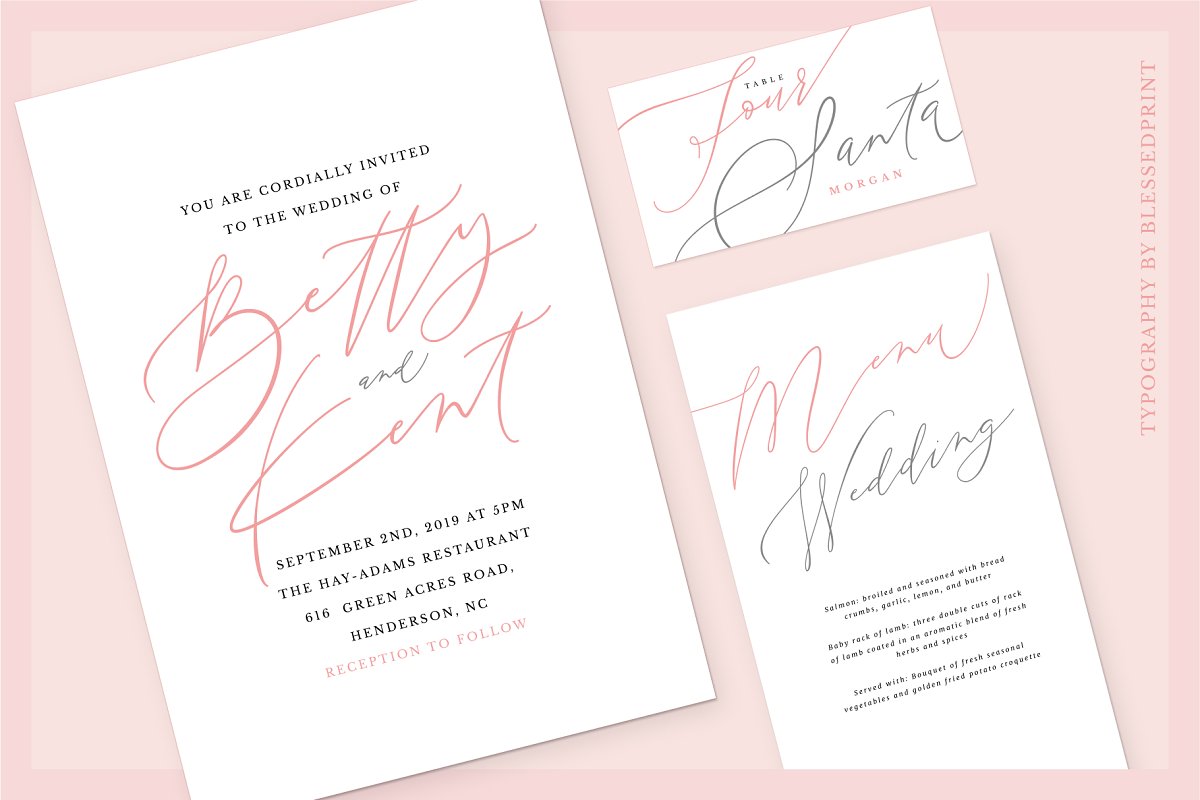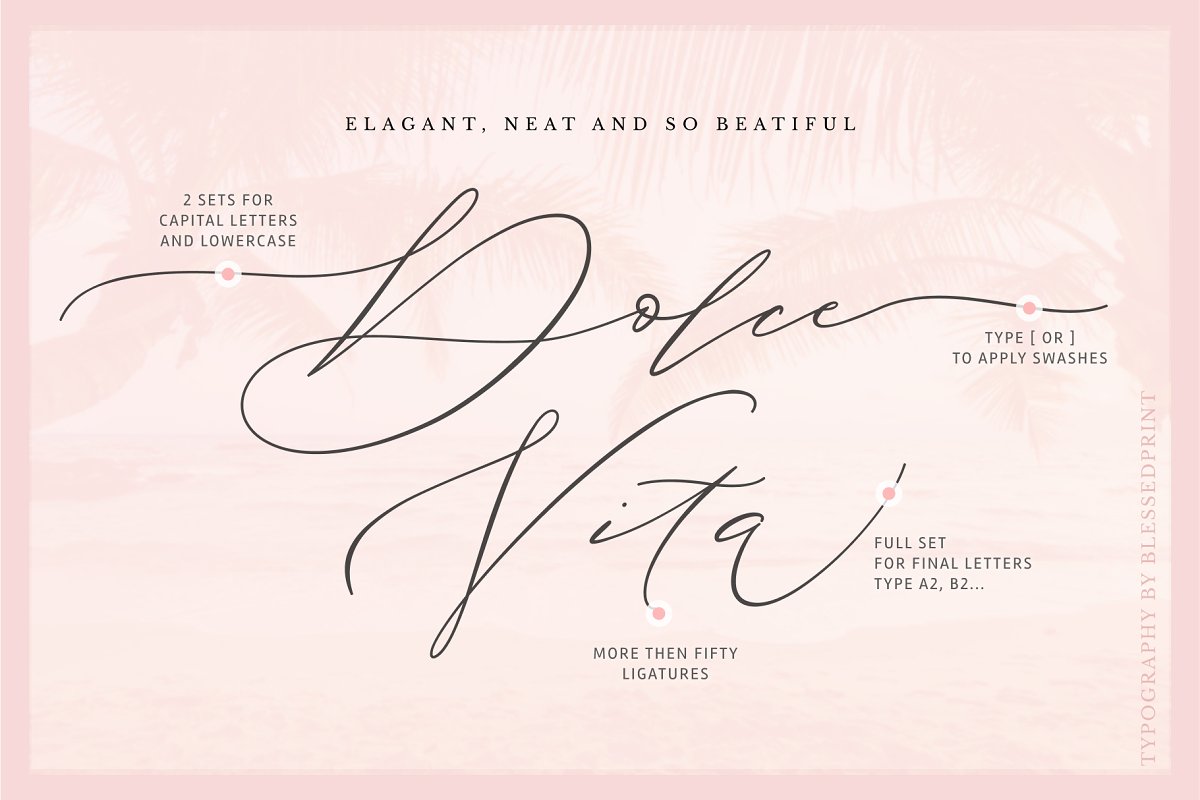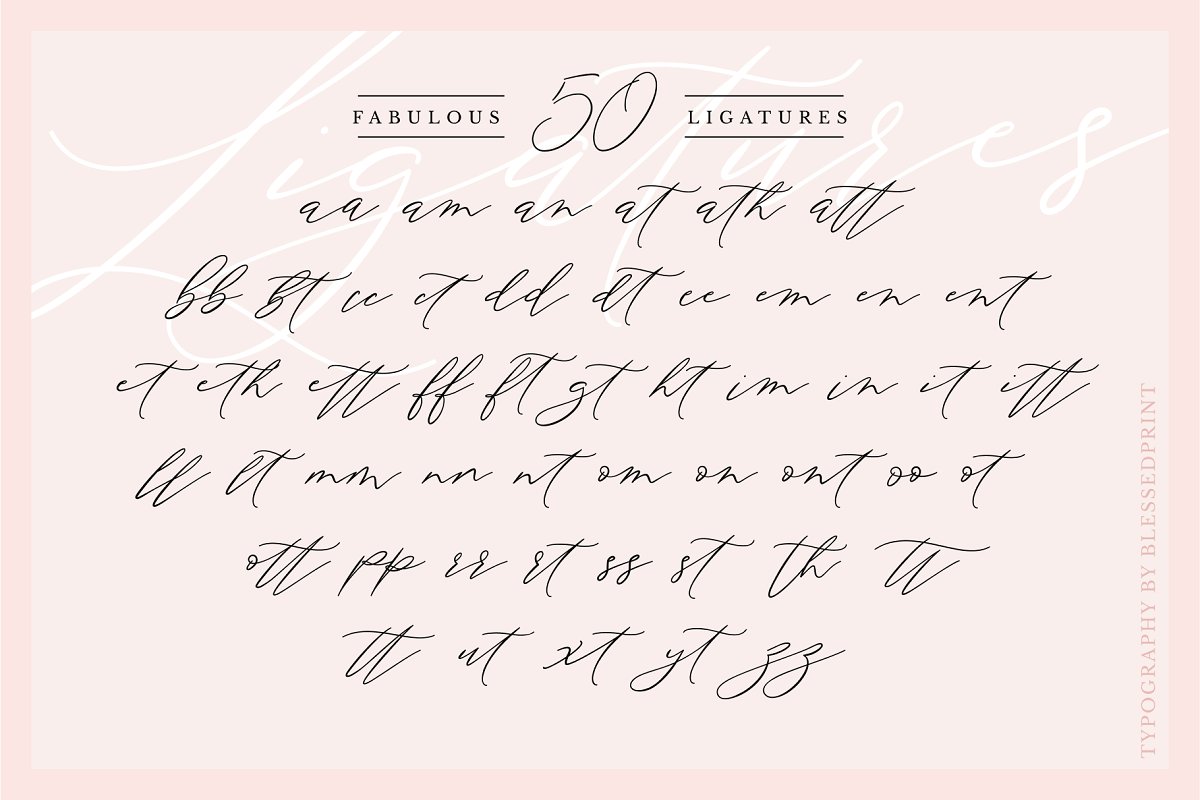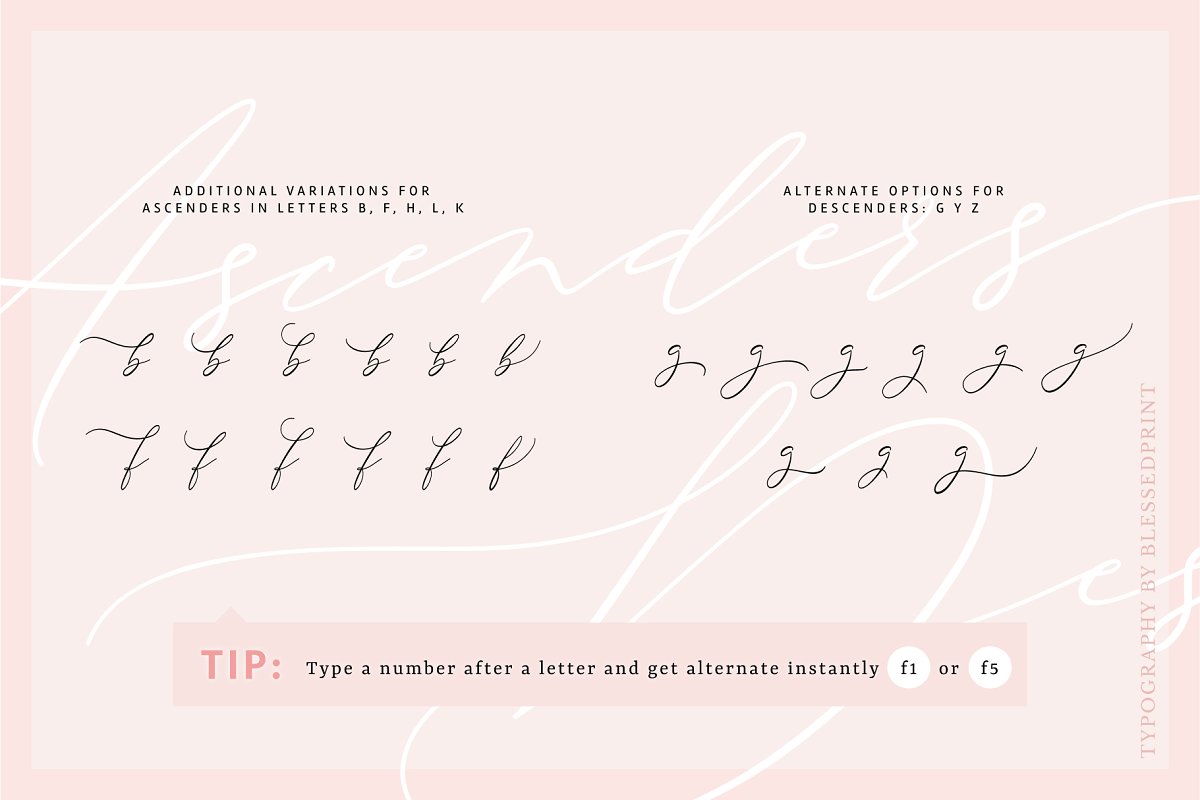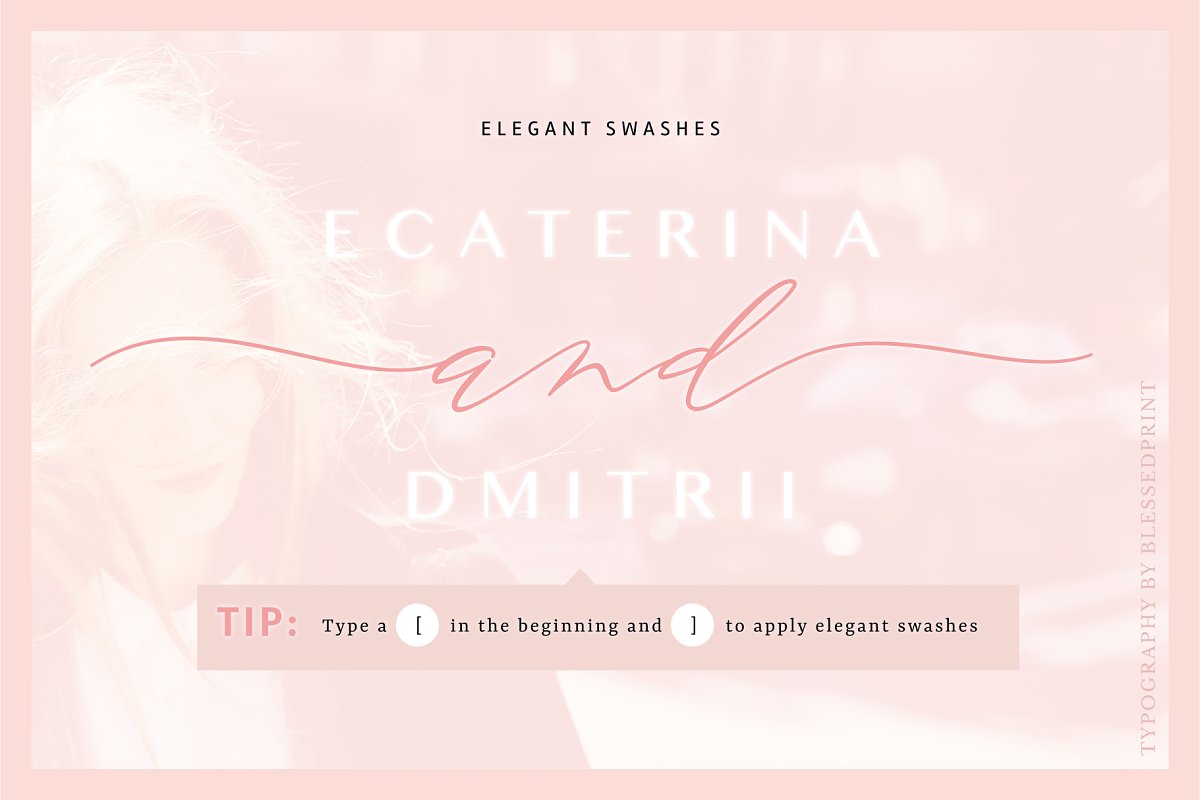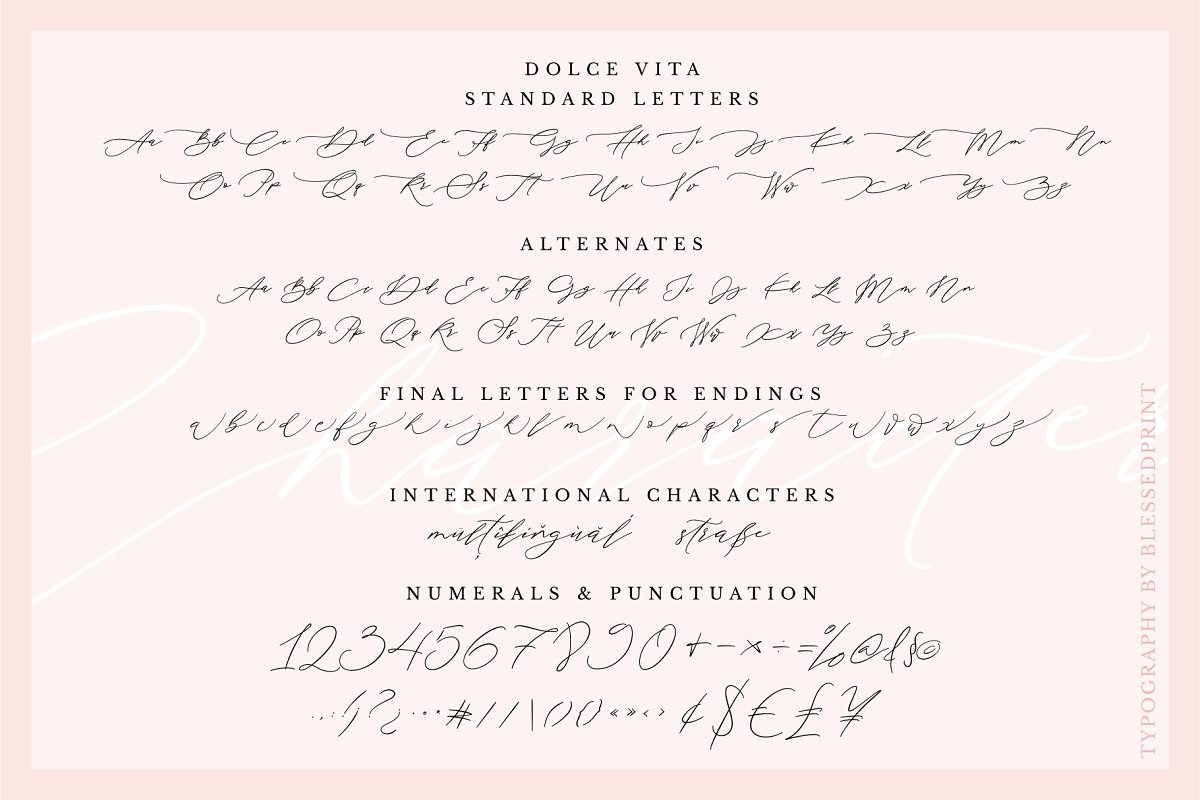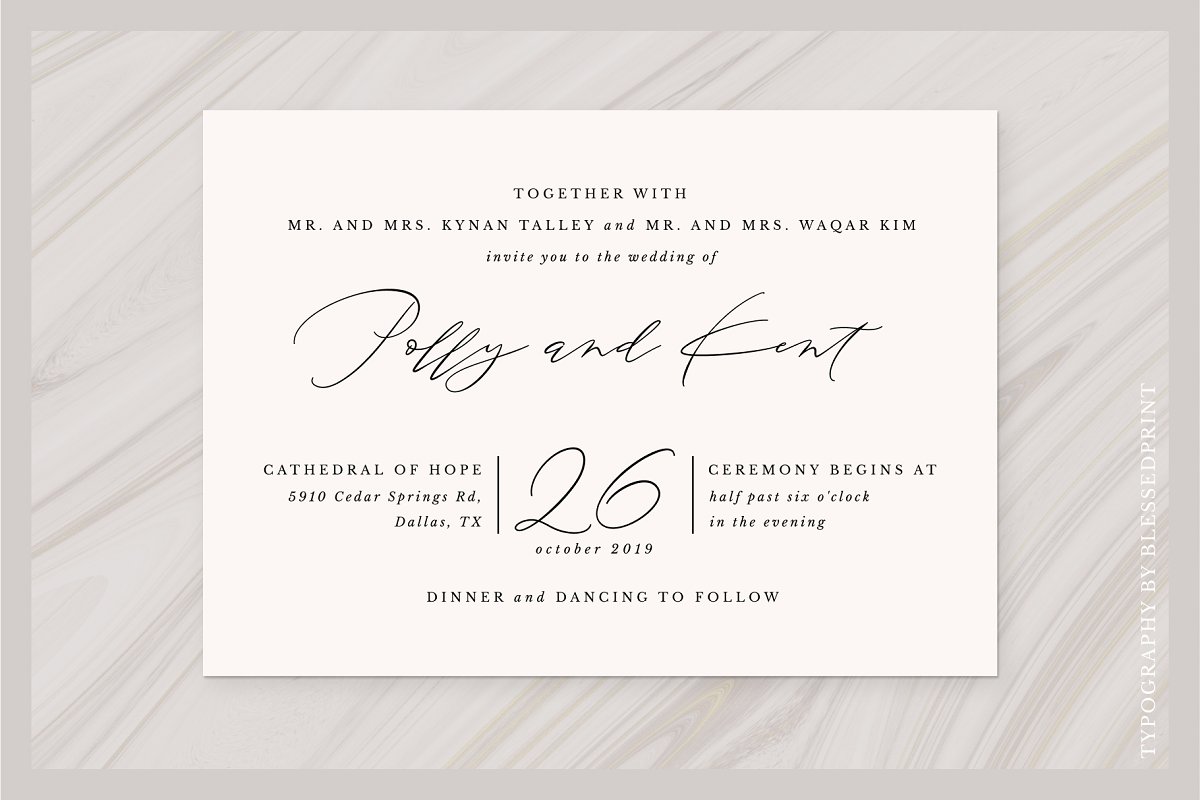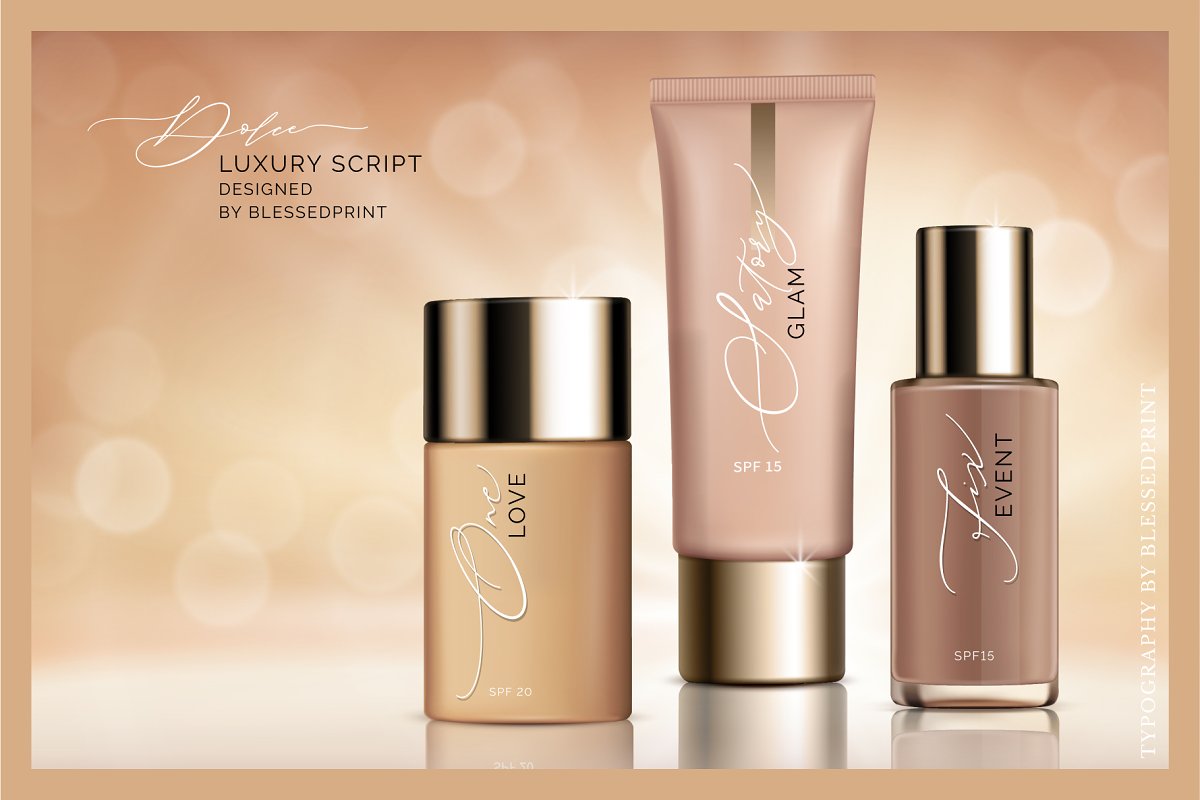
Try Demo font before purchase: https://blessedprint, com/fonts/dolce-vitaPreview All Glyphs: https://drive, google, com/file/d/1DXihb9yoFfSdMZcidfeJLWxZCbW9aJeL/Meet Dolce Vita with already included commercial license for just $25, You are welcome to use it for Corjl and/or Templett applications, Dolce Vita includes 50 ligatures to add elegant & unique appearance your sign
You are welcome to try how it works by typing here any text, Apply contextual alternates and look how it becomes even better, Each single glyph has it’s own unicode (PUA) so you can copy/paste alternates and don’t worry that you miss something, DolceVita is so easy to work with
Apply swashes instantly by typing [ and ], Try here right now 🙂 Each letter has alternates, When you type one after letter you are getting alternate: A1, a1, B1, b1, etc, , , If you type a2, b2, b3, , , you are getting perfect glyph for ending, Just try to type Vita2
It is very easy and fun, Finally play with ascenders/descenders y3, y4, y5, , , same for g, z, b, f, l, h, k, Multilingual support: English, Dutch, Spanish, Czech, Danish, French, Italian, Norwegian Nynorsk, Polish, Portuguese, Romanian, Slovak, Swedish and more…Program support The fonts from this collection are opentype and have many opentype features